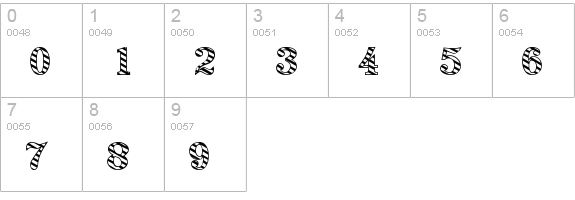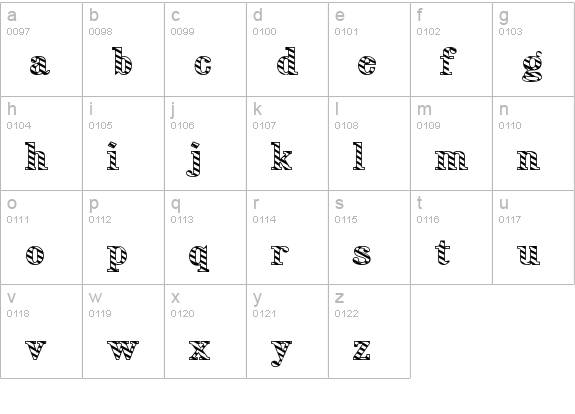
RataczakCandied Font Details
RataczakCandied font is a delightful and whimsical typeface that will add a touch of sweetness to any design project. Its playful and rounded letterforms evoke a sense of fun and joy, making it perfect for a variety of applications. This font is expertly crafted with attention to detail, ensuring that each character is beautifully designed and perfectly balanced. The smooth curves and elegant lines create a harmonious and visually appealing aesthetic that will captivate and engage viewers. RataczakCandied font is a versatile typeface that can be used in a wide range of design projects. Whether you are creating a logo, designing a website, or crafting a poster, this font will bring a unique and eye-catching element to your work. One of the best features of RataczakCandied font is that it is freely available to download at FontsMarket.com. This means that you can enjoy the benefits of this stunning typeface without having to worry about any additional costs. It is a fantastic opportunity to enhance your designs with a high-quality font at no expense. With RataczakCandied font, you have the freedom to explore your creativity and experiment with different styles and layouts. Its versatility allows you to create designs that are both visually appealing and memorable, leaving a lasting impression on your audience. So why wait? Download RataczakCandied font today from FontsMarket.com and unleash your creativity with this delightful and freely available typeface. Let your designs shine with a touch of sweetness and charm that only RataczakCandied font can provide.